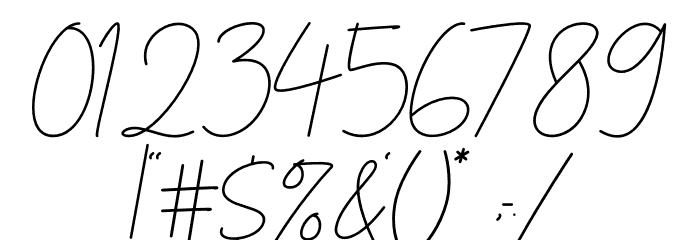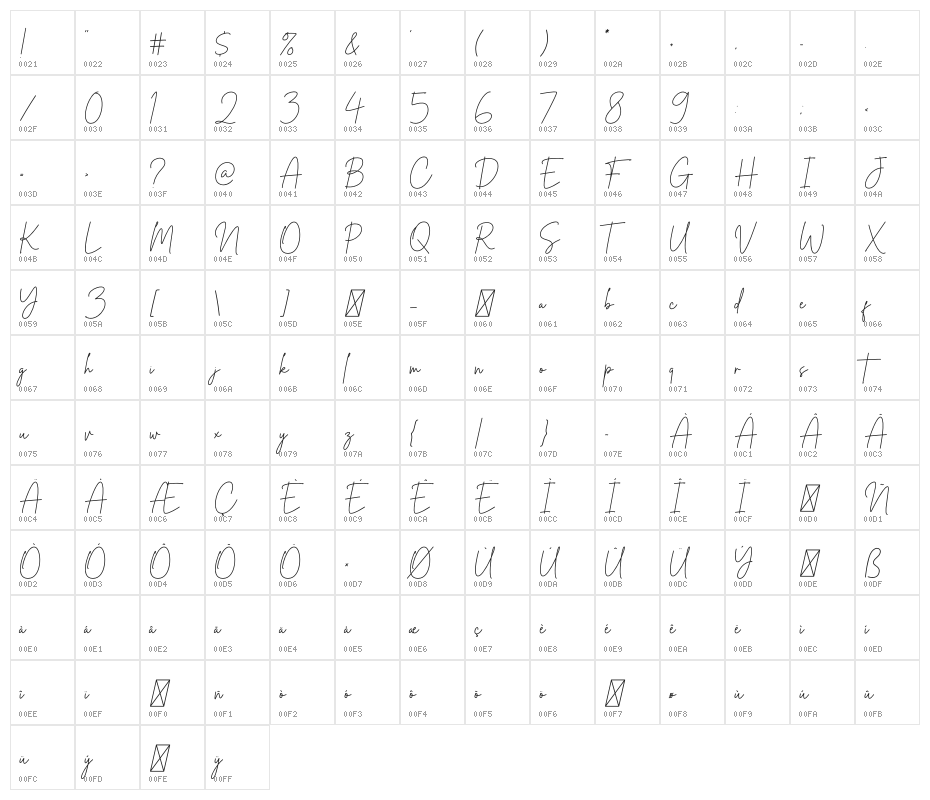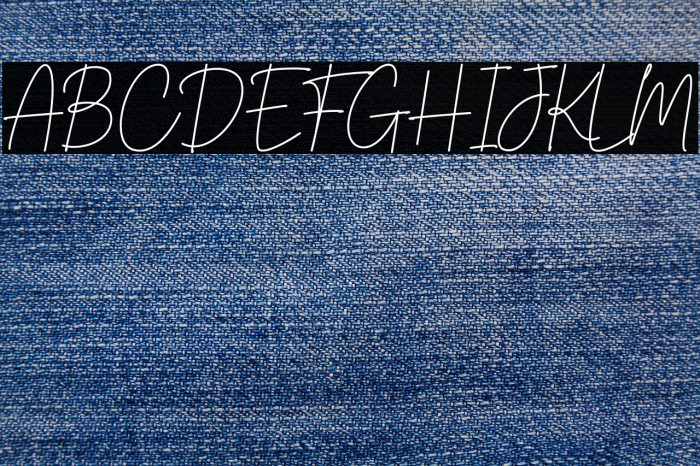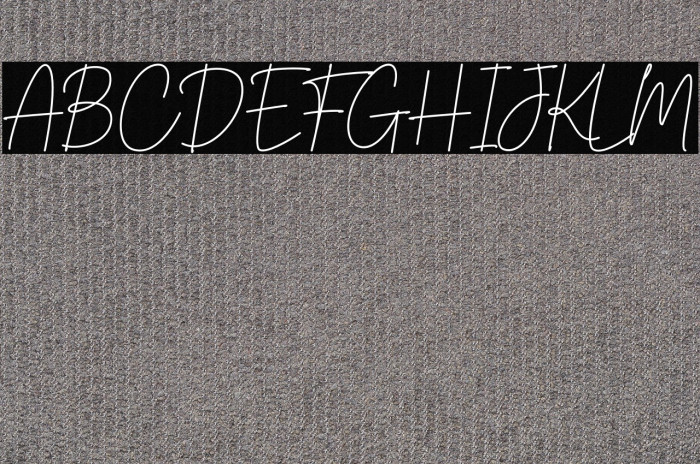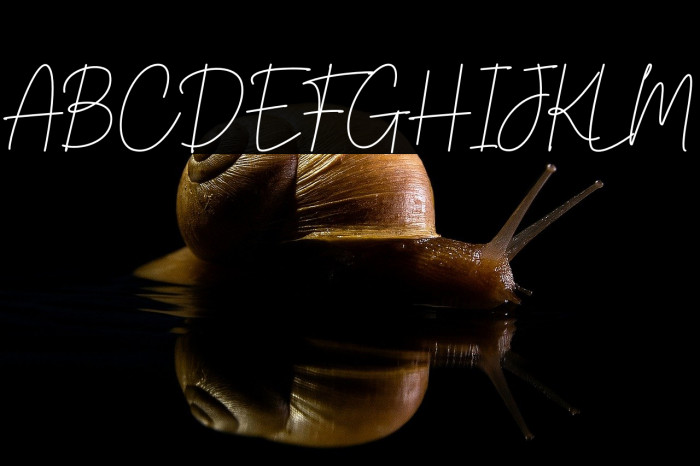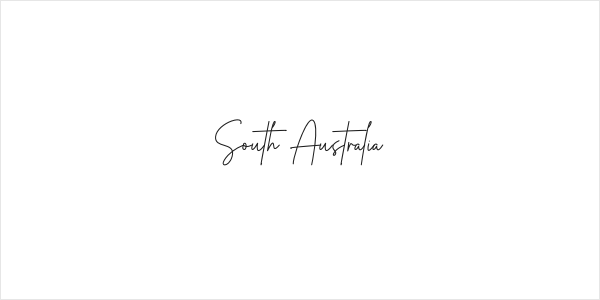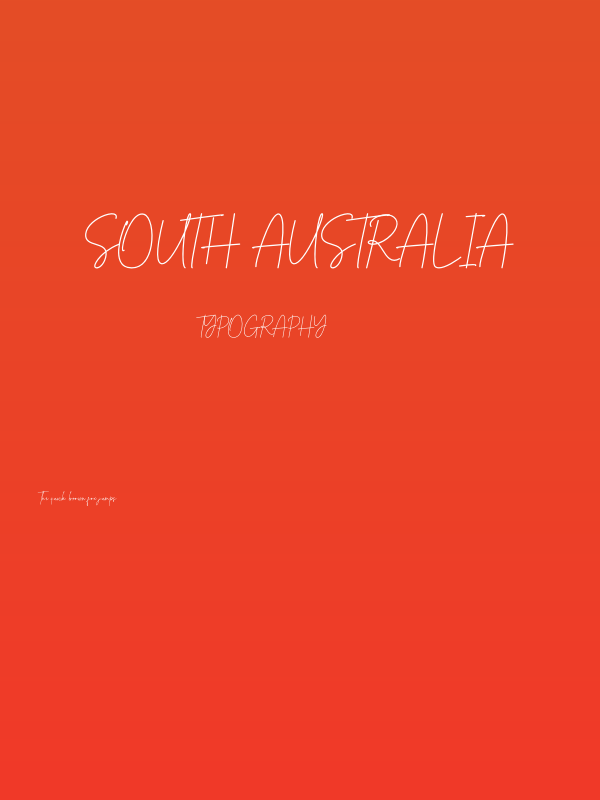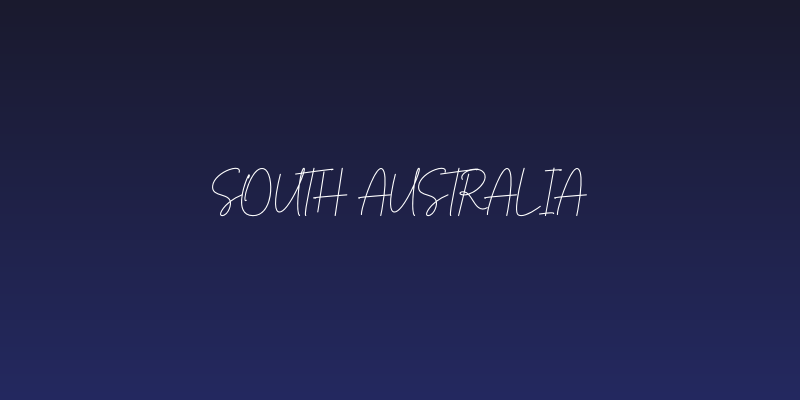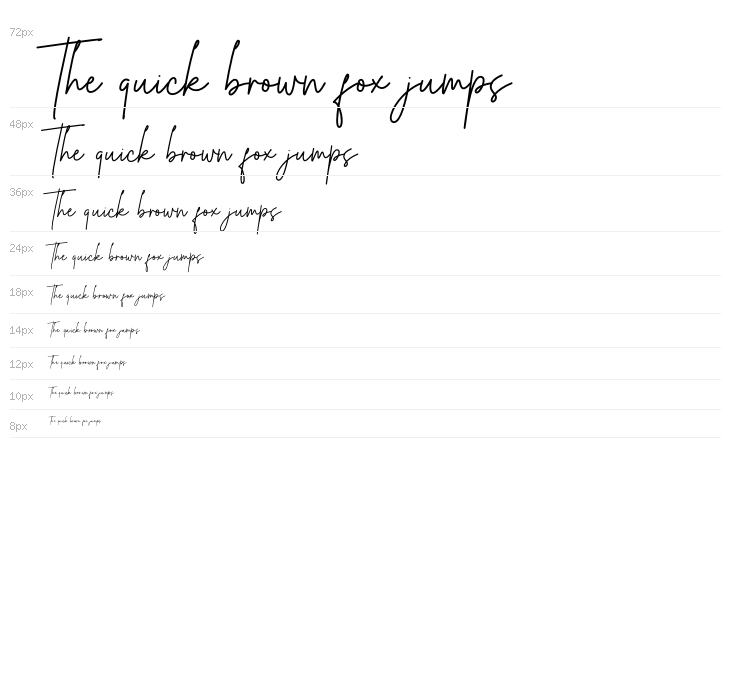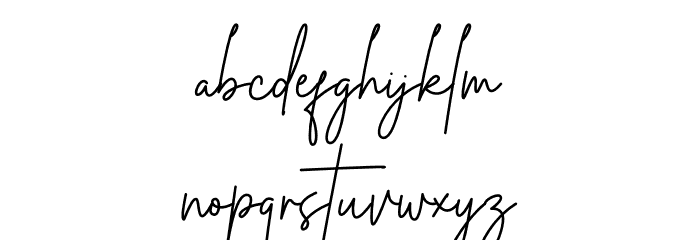
South Australia Font
South Australia Description
This font features a delicate, handwritten style with a fluid and continuous stroke that mimics natural handwriting. The uppercase letters are tall and slightly narrow, giving a sense of elegance and sophistication. The lowercase letters maintain a consistent flow, enhancing readability while preserving the handwritten charm. Numbers and special characters are crafted with the same attention to detail, ensuring a cohesive look across all text. The overall design is airy and light, making it suitable for projects that require a personal touch or a sense of intimacy.
| Overall Style | Elegant, Personal, Intimate |
| Use Case | Invitations, Personal letters, Branding |
| Proposed Projects | Ideal for wedding invitations, personal letters, branding for boutique businesses, and any project requiring a personal, elegant touch. |